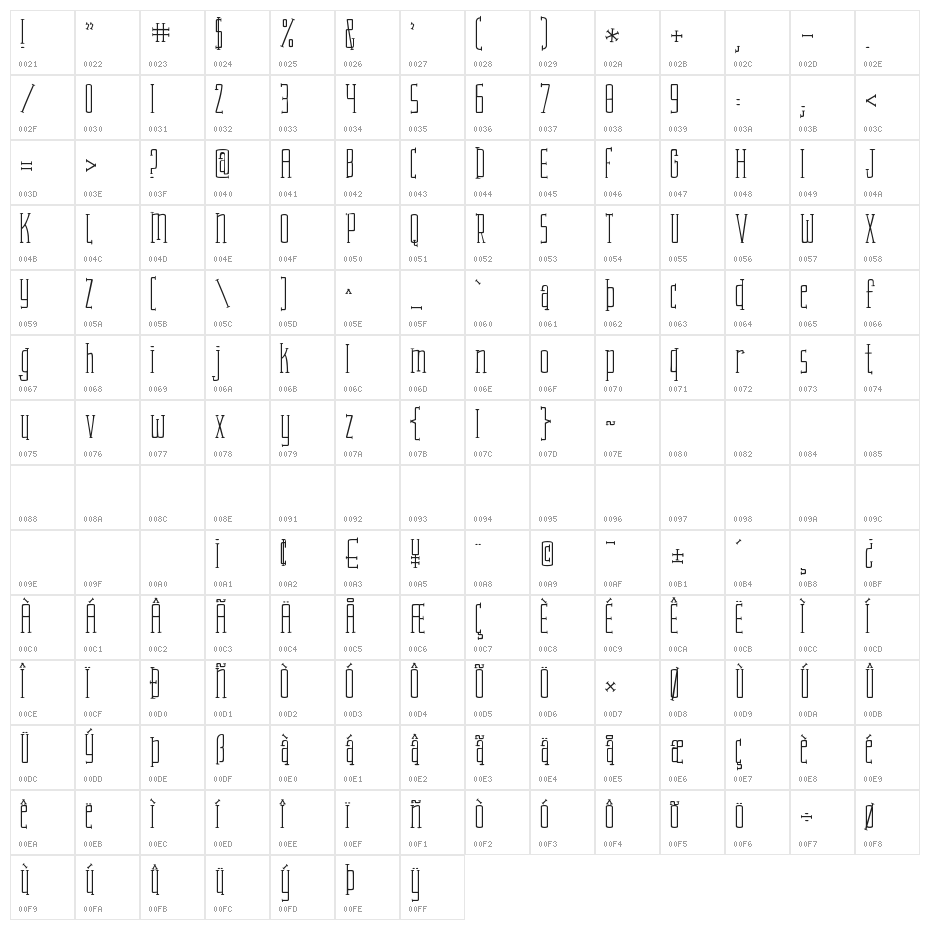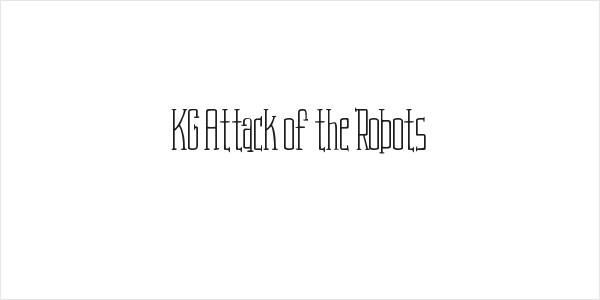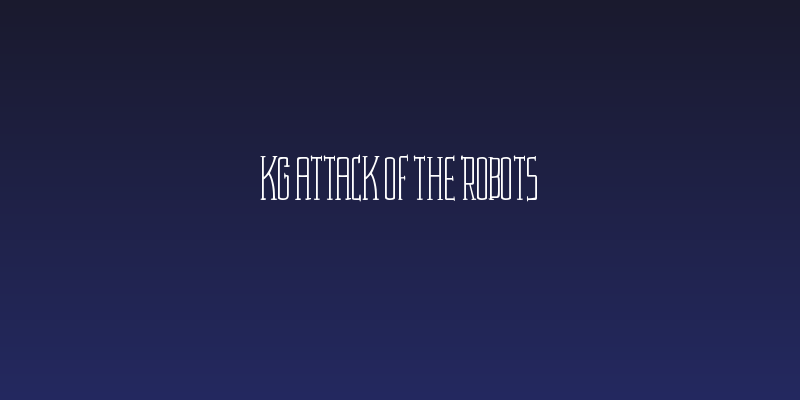
KG Attack of the Robots Font
KG Attack of the Robots Description
This font features a distinctive, futuristic design with tall, narrow characters and sharp, angular lines. The uppercase letters are particularly elongated, giving a sense of height and elegance. The lowercase letters maintain this slender appearance, creating a cohesive look across the alphabet. Numbers and special characters follow the same stylistic cues, ensuring uniformity. The font's unique style is reminiscent of a sci-fi or robotic theme, making it ideal for projects that require a modern and technological feel. The spacing between characters is tight, enhancing its sleek and compact appearance. The contrast in stroke thickness is low, contributing to its streamlined and minimalistic aesthetic.
Proposed ProjectsIdeal for sci-fi book covers, technology-themed posters, video game titles, and futuristic branding.